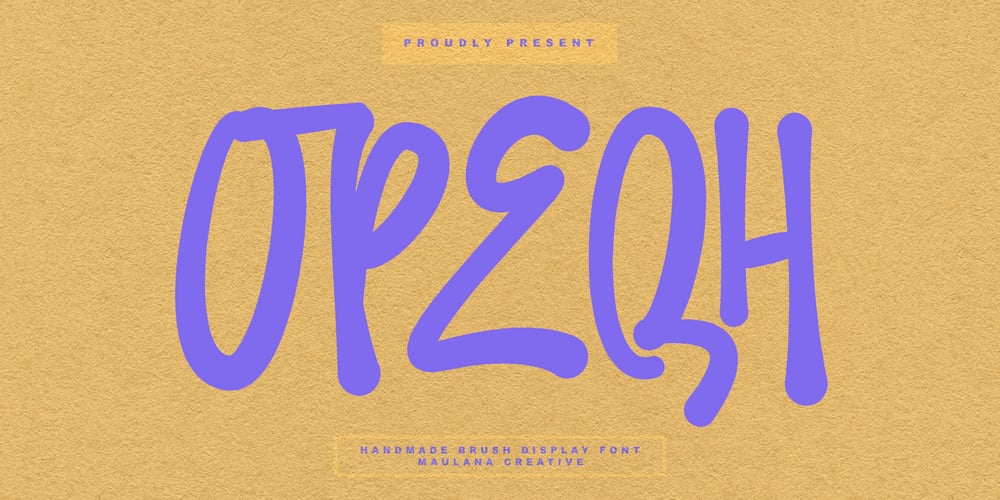
MC Opeqh Font Family was designed by Gilang Maulana and published by Maulana Creative. MC Opeqh contains 1 styles and family package options. Opeqh handmade brush display font, fun character with alternates and ligatures. To give you an extra creative work. Opeqh handmade brush display font support multilingual language.Many Thanks,Maulana Creative